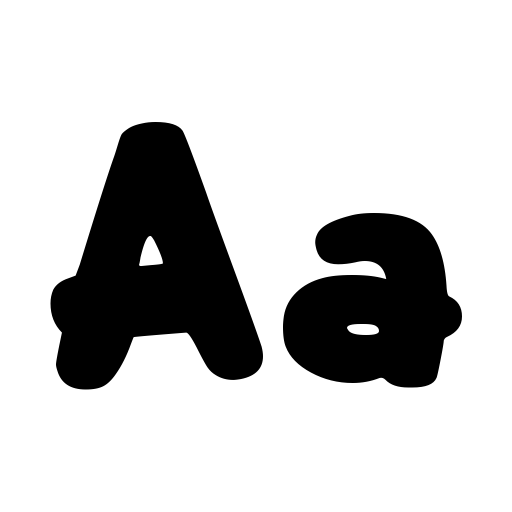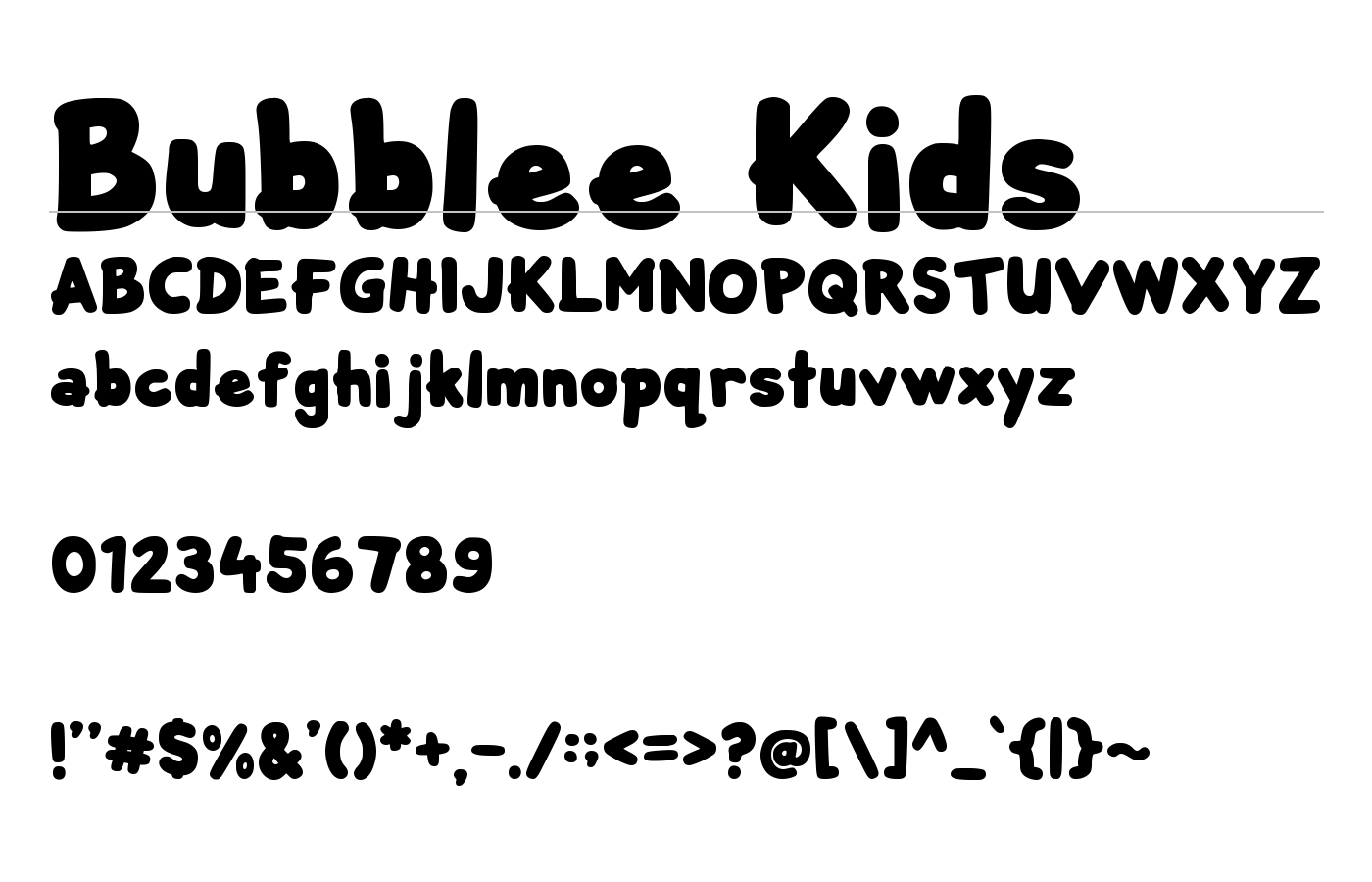
Bubblee Kids is a playful, rounded sans serif font with a chunky, bold weight and a friendly, informal feel. Its soft, bubbly letterforms with high legibility make it perfect for children’s books, toys, and any design aiming to evoke fun and warmth. This font works well in logos, headlines, and packaging where a cheerful and approachable personality is desired.
Bubblee Kids Font